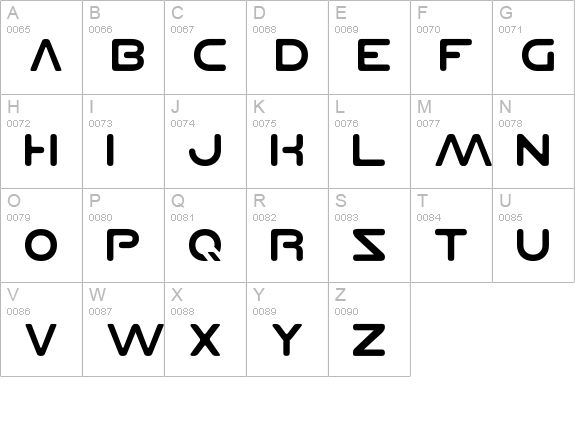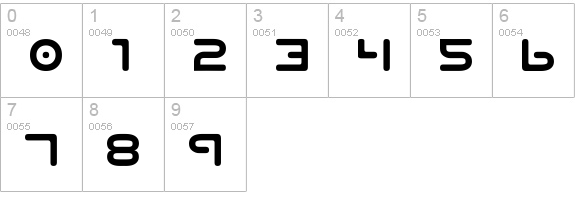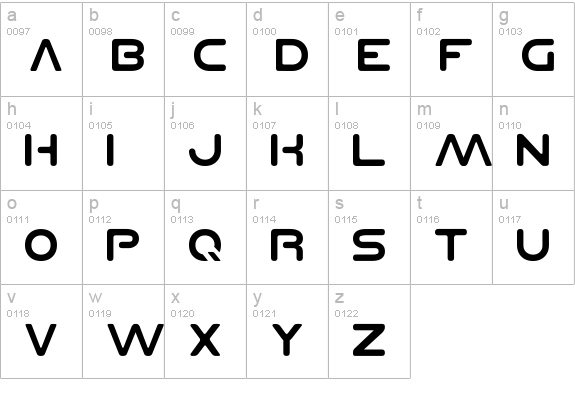
Planet NS Font Details
Planet NS is a stunning and versatile font that will take your design projects to the next level. With its sleek and modern aesthetic, this font is perfect for a wide range of applications, from branding and advertising to web design and print materials. Featuring clean lines and smooth curves, Planet NS exudes a sense of elegance and sophistication. Its unique letterforms are carefully crafted to create a harmonious balance between legibility and artistic flair. Whether you're designing a logo, a poster, or a website, this font will effortlessly elevate your work and capture the attention of viewers. One of the best things about Planet NS is that it is free! That's right, you can download this incredible font without spending a dime. Simply head over to FontsMarket.com and start exploring the world of possibilities that Planet NS has to offer. Whether you're a professional designer or a hobbyist, this font is a valuable addition to your creative toolkit. Don't miss out on the opportunity to enhance your designs with Planet NS. Download it for free today at FontsMarket.com and unlock a world of typography possibilities.